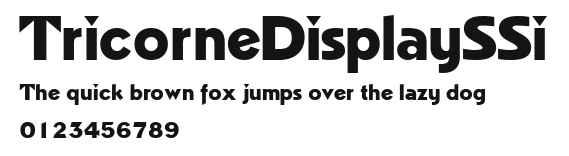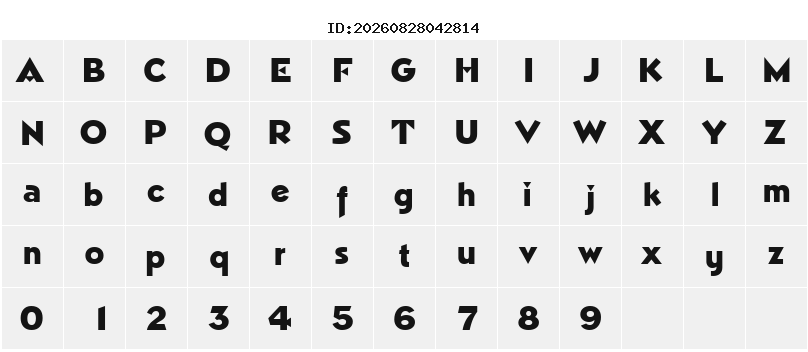
• Font Name: TricorneDisplaySSi
TricorneDisplaySSi.ttf is a modern, elegant sans-serif font designed for ultimate readability and visual harmony. Perfect for branding, headlines, web design, and print materials.